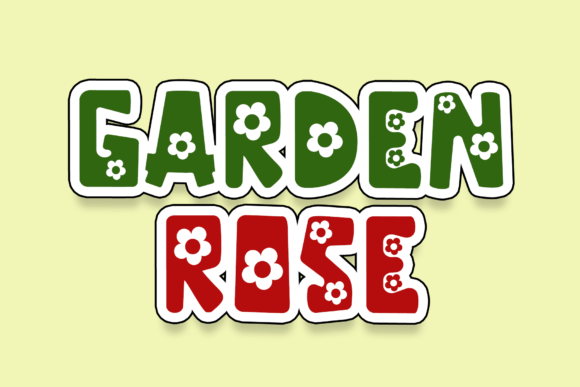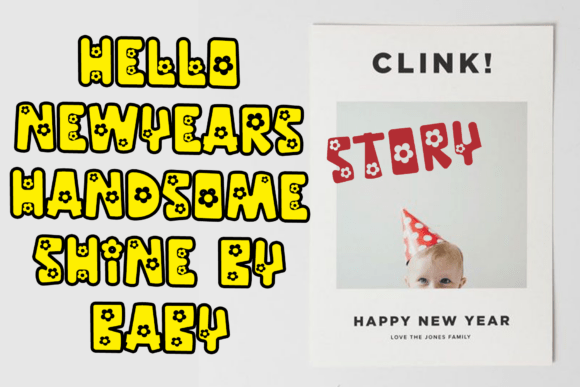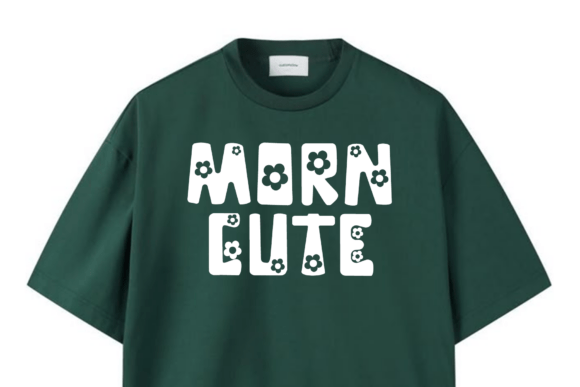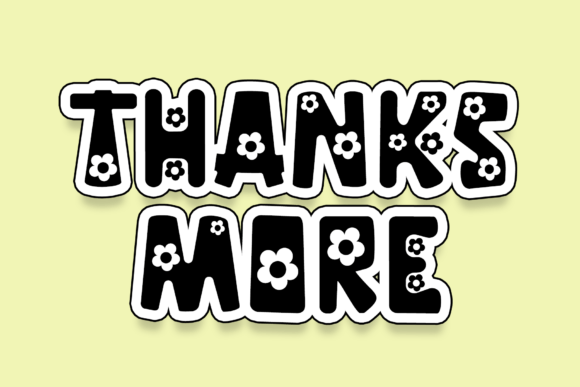
Introduction to Smart Daisys Font
Smart Daisys is a bold and high-impact display font designed with an approachable, retro-inspired aesthetic.
This decorative font features massive, blocky letterforms characterized by thick silhouettes and a stable vertical axis The design is defined by the integration of whimsical floral motifs directly into the negative space of the strokes, creating a sense of customized, artisanal craftsmanship.
Key Features of Smart Daisys Font